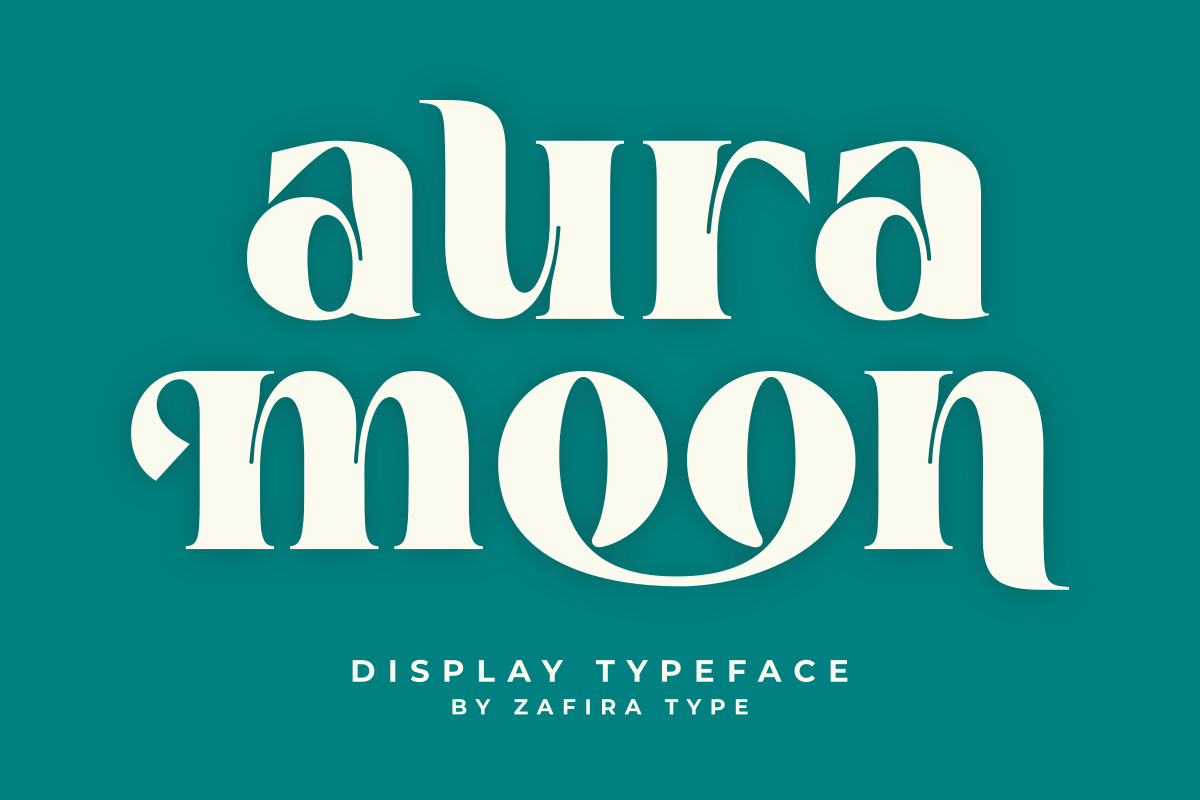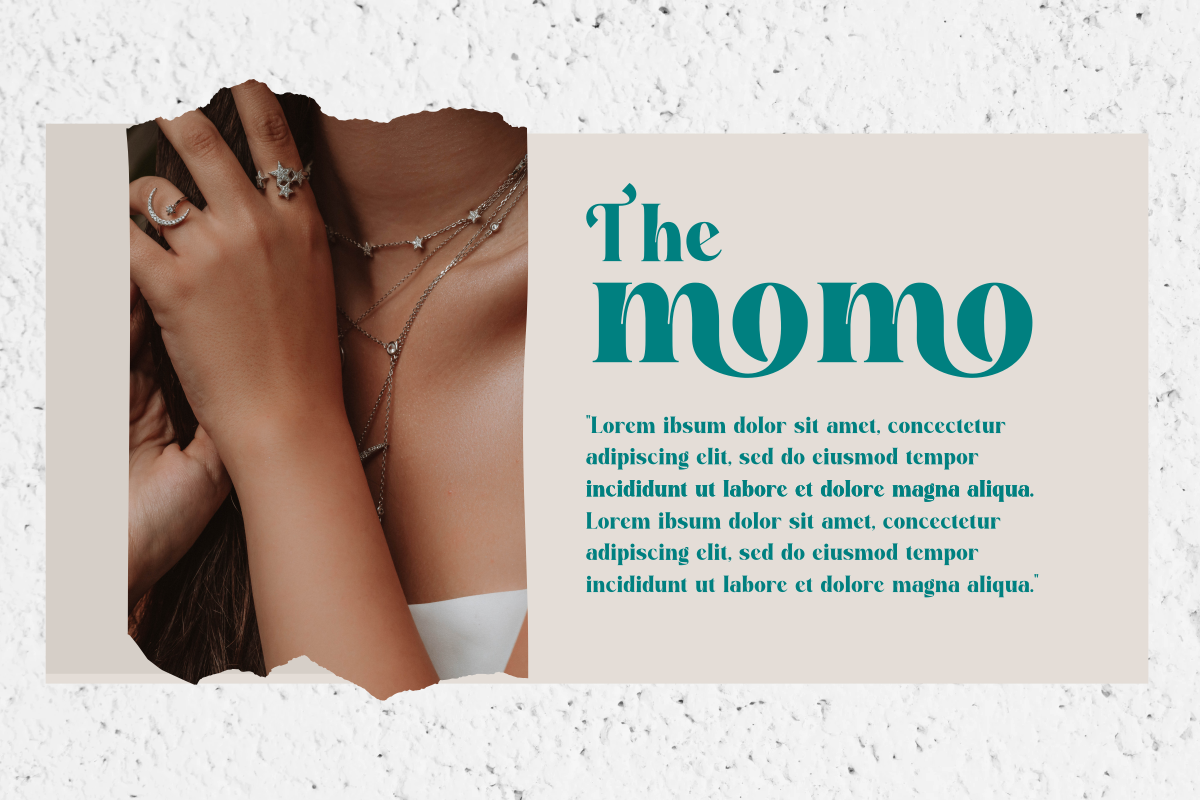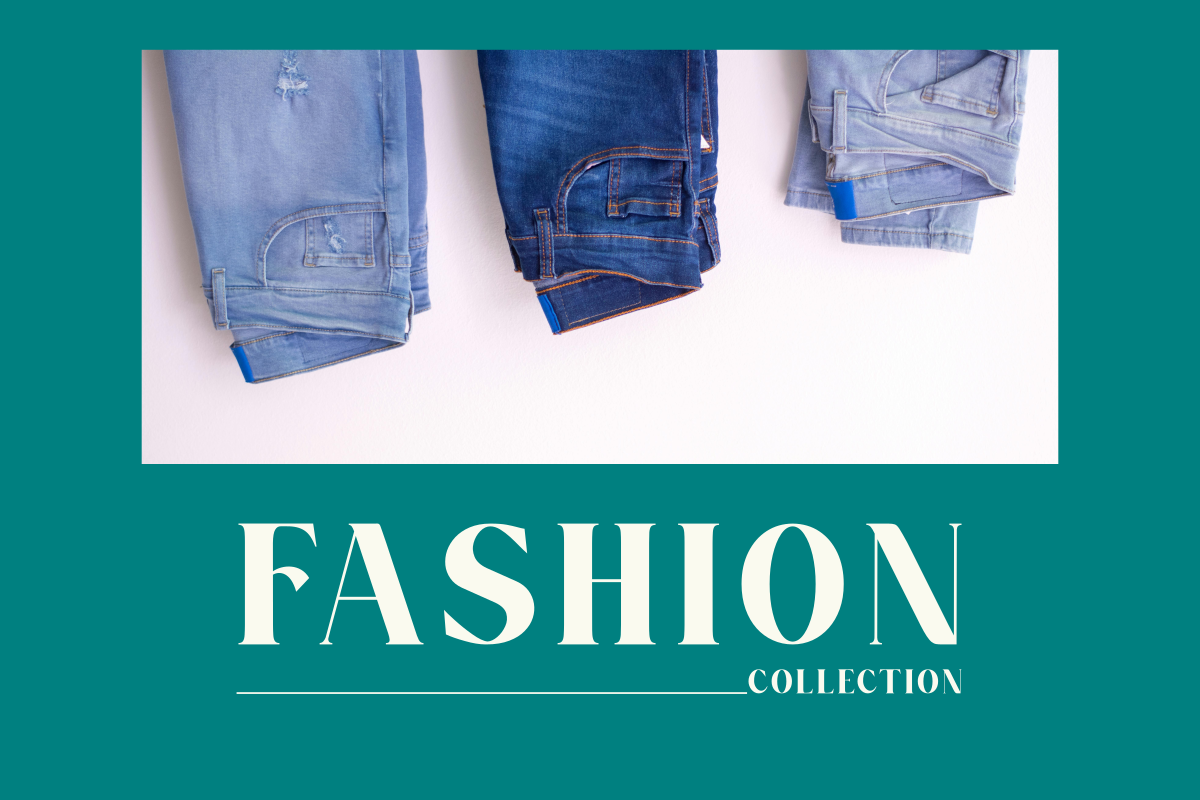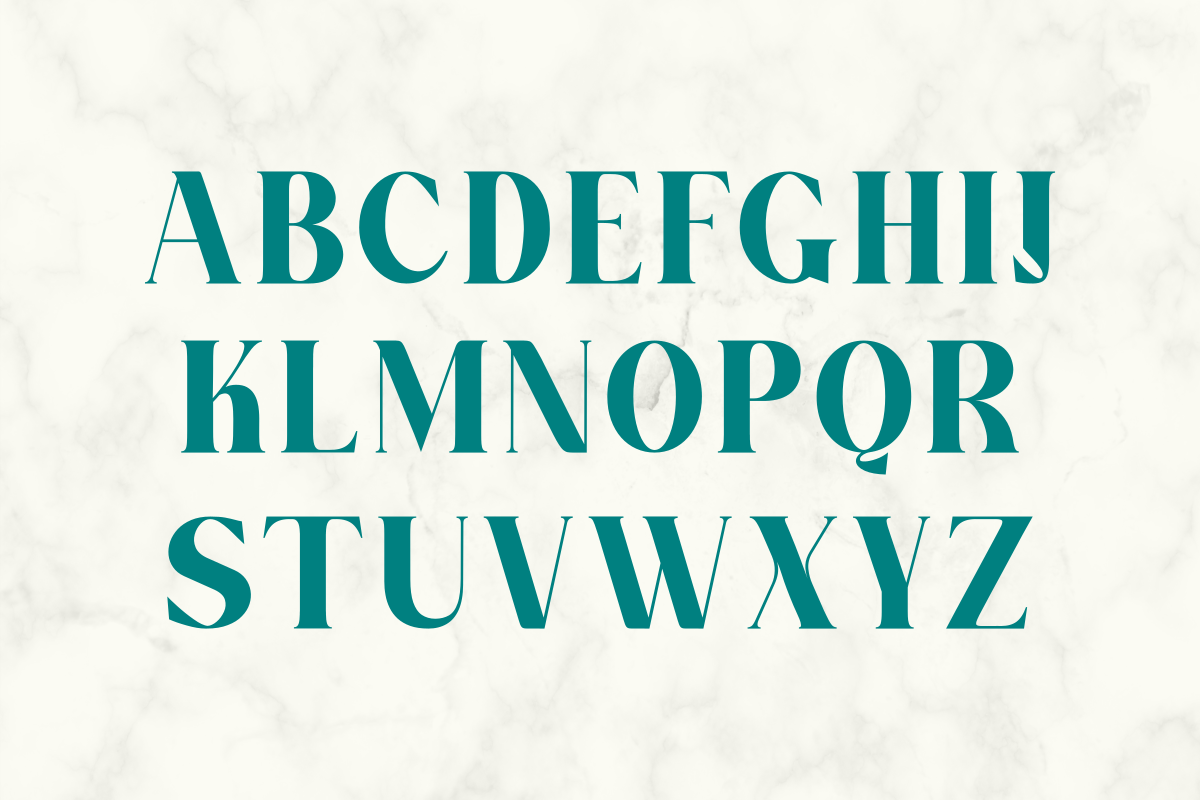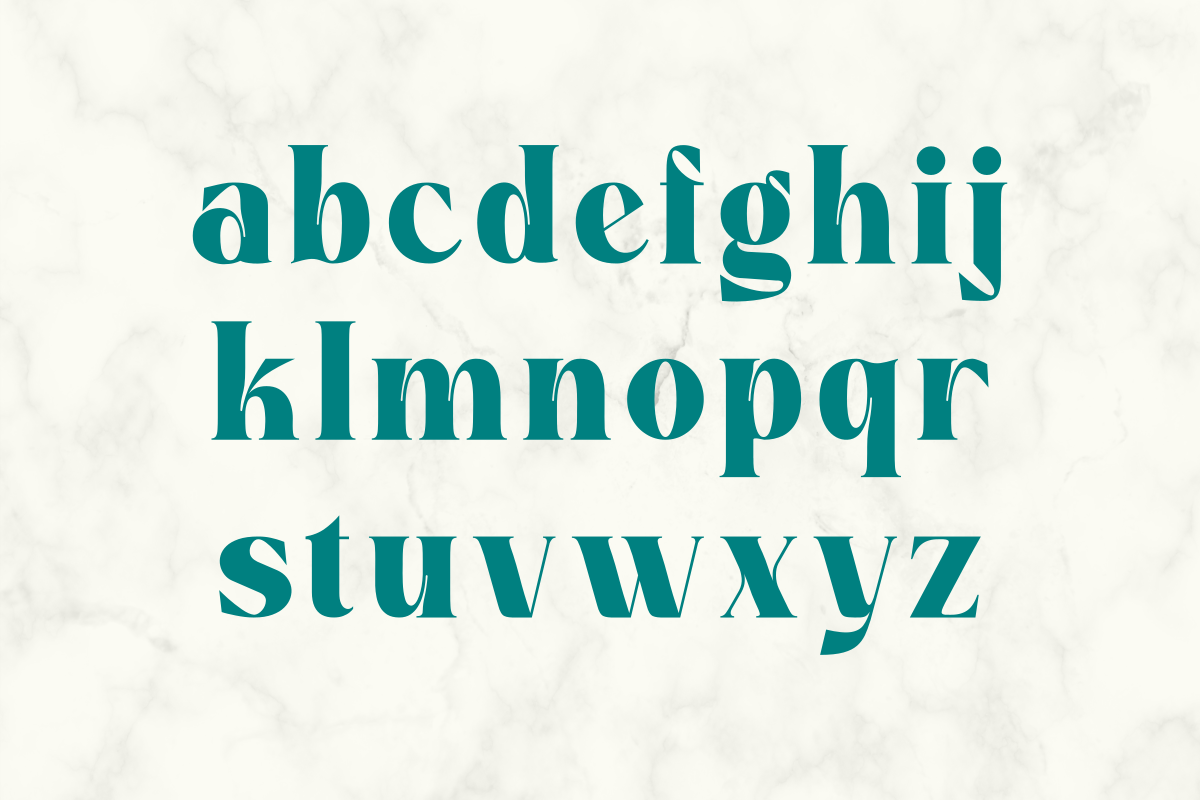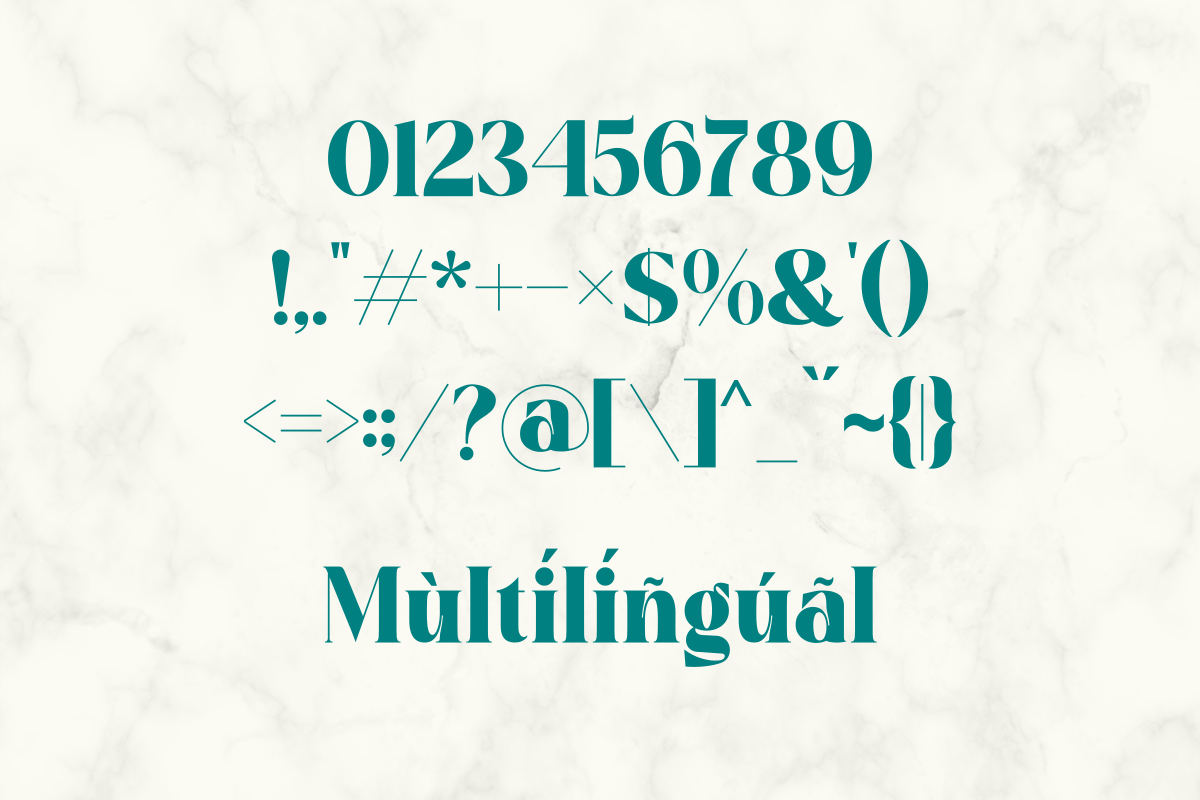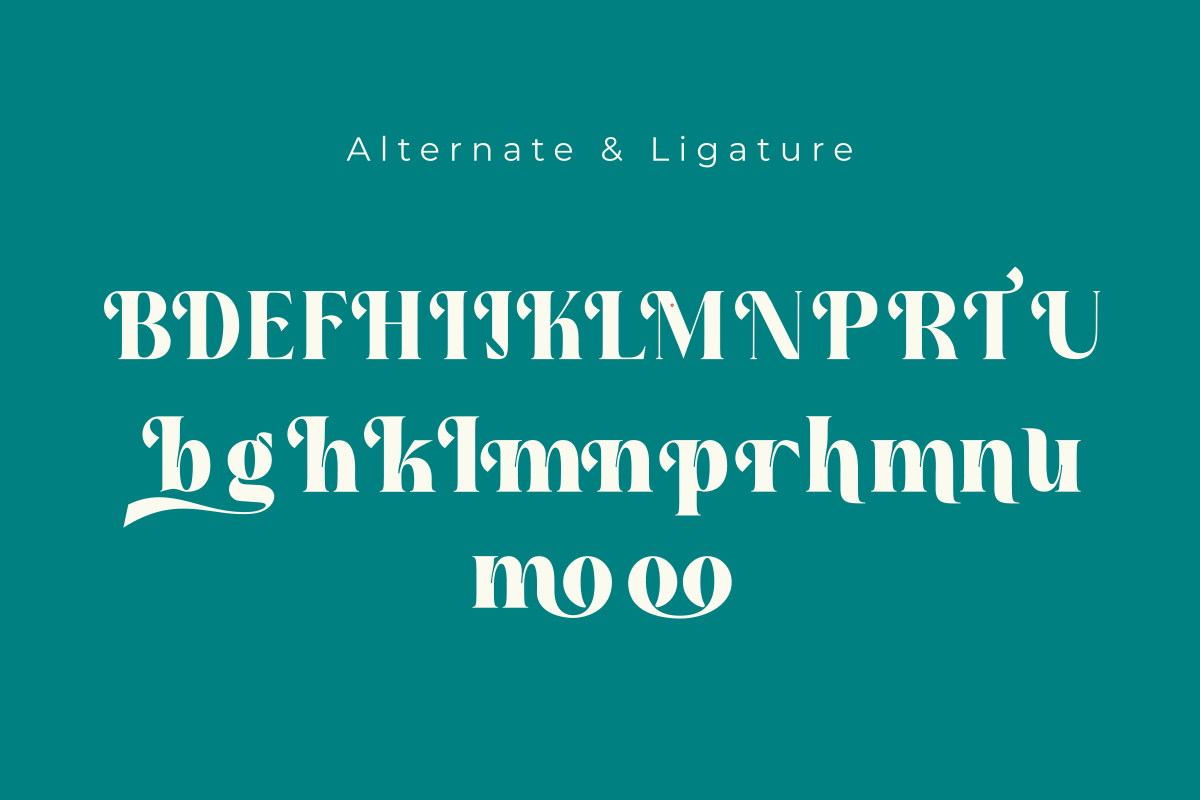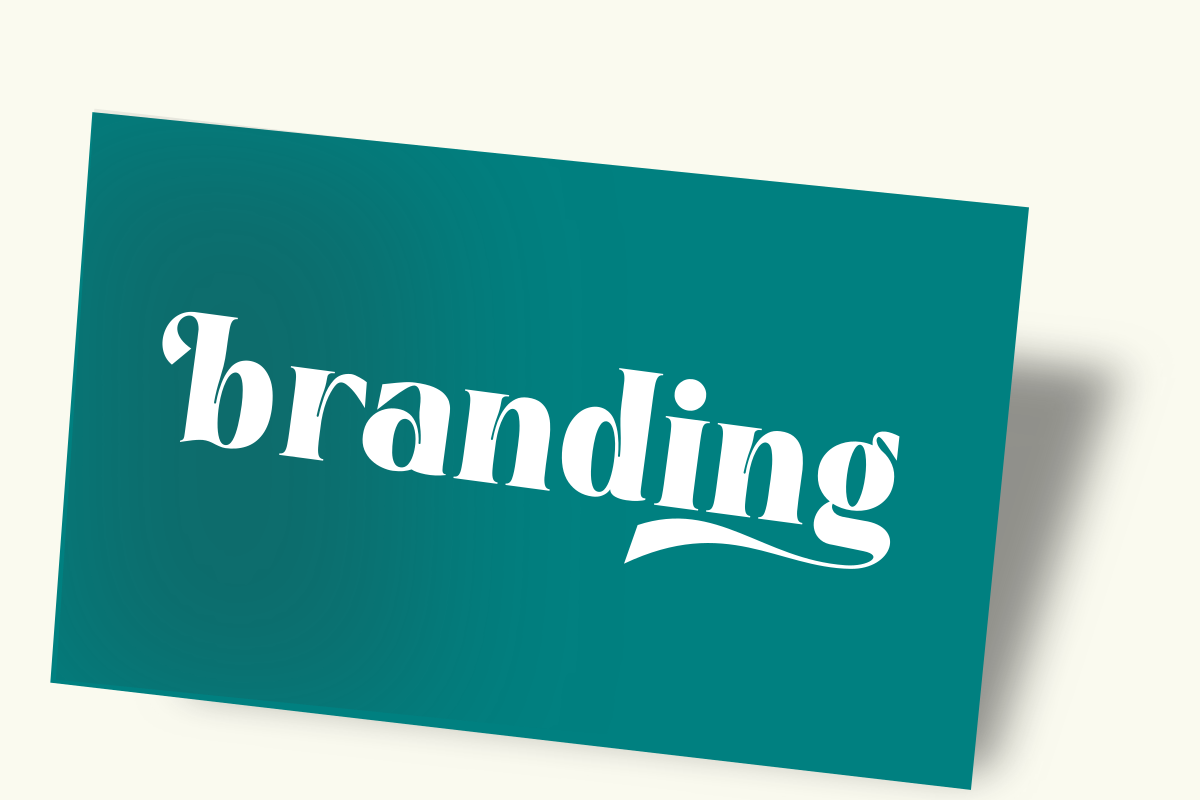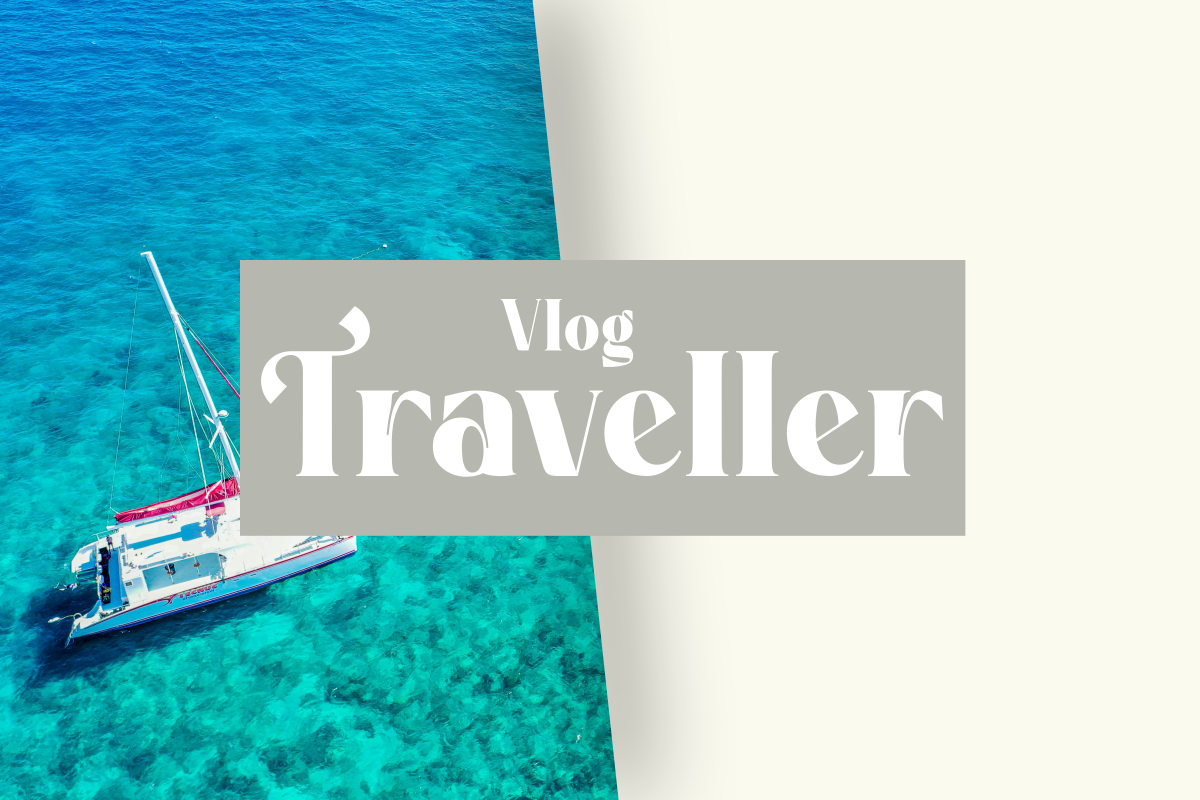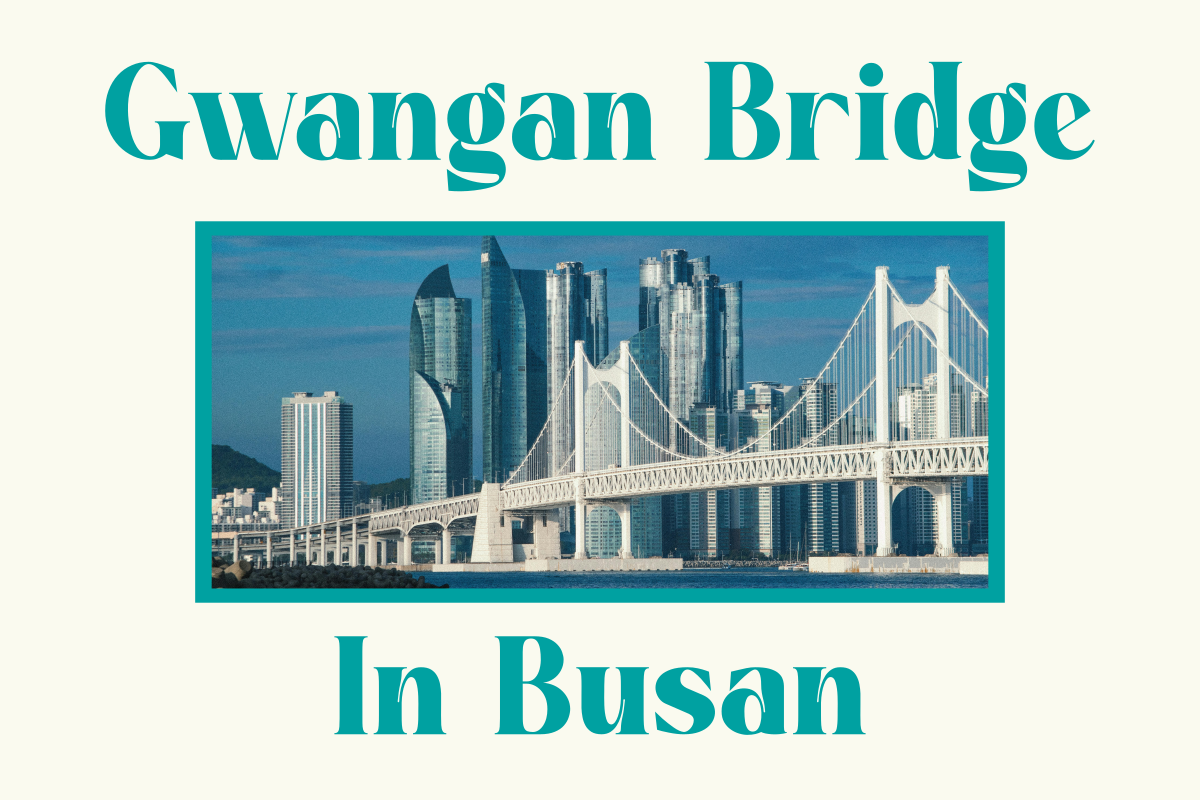
Aura Moon
Aura Moon is an elegant serif display font designed to add a touch of luxury to your design projects. Combining classic beauty with a modern style, Aura Moon is perfect for headlines, logos, and invitations. Each character is crafted with high precision, creating sharp and readable letters. Enhance the visual appeal of your designs with Aura Moon.
– Standard glyphs
– Multilingual
– Symbols and Number